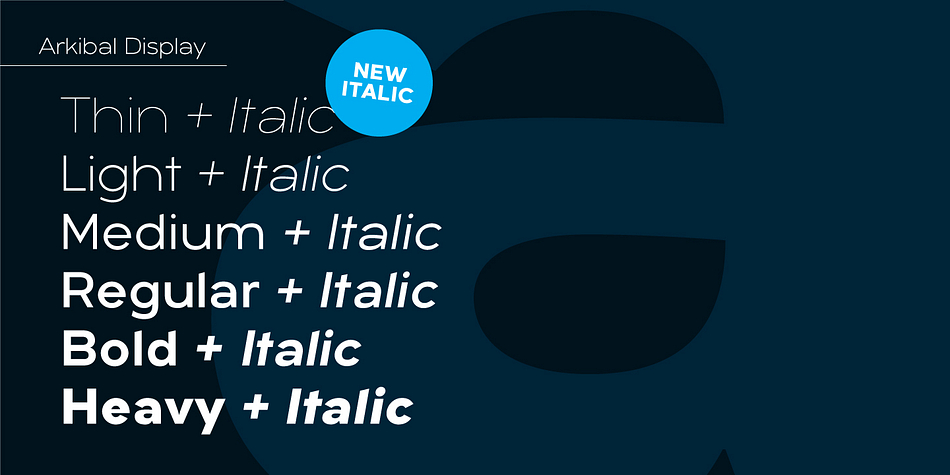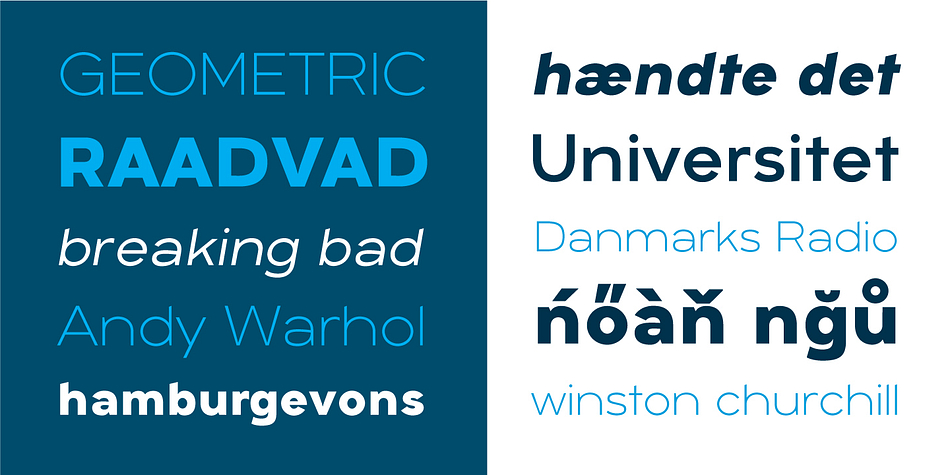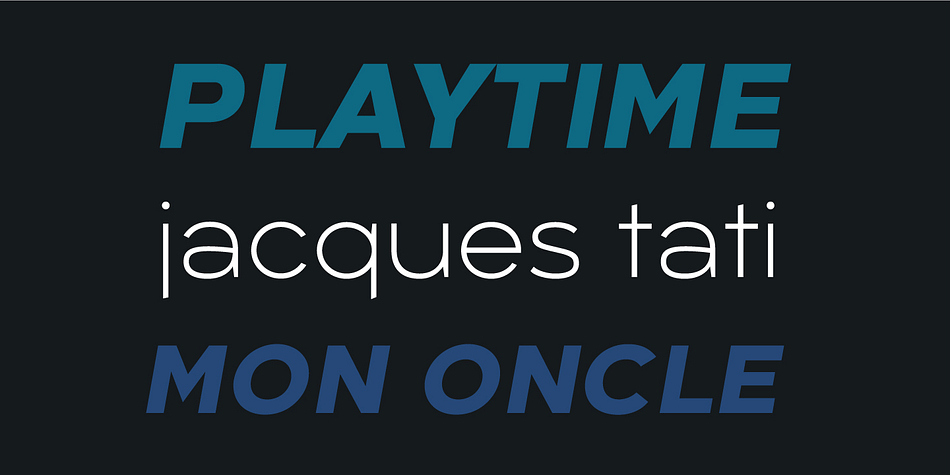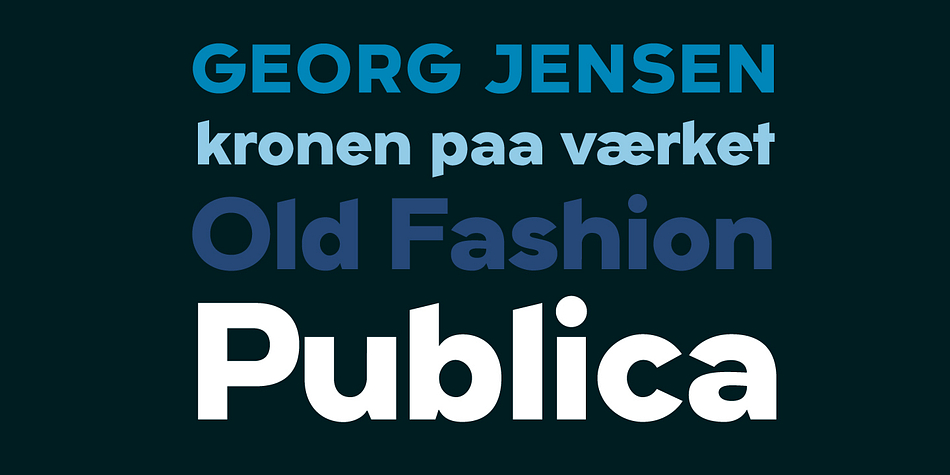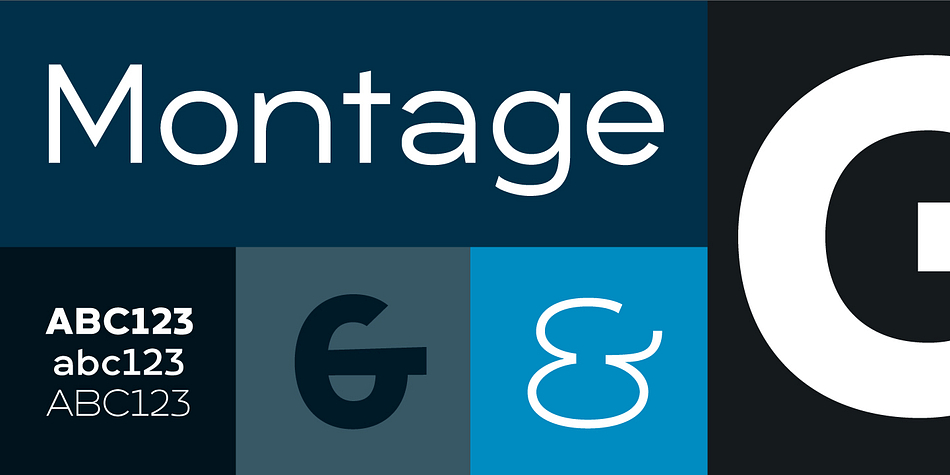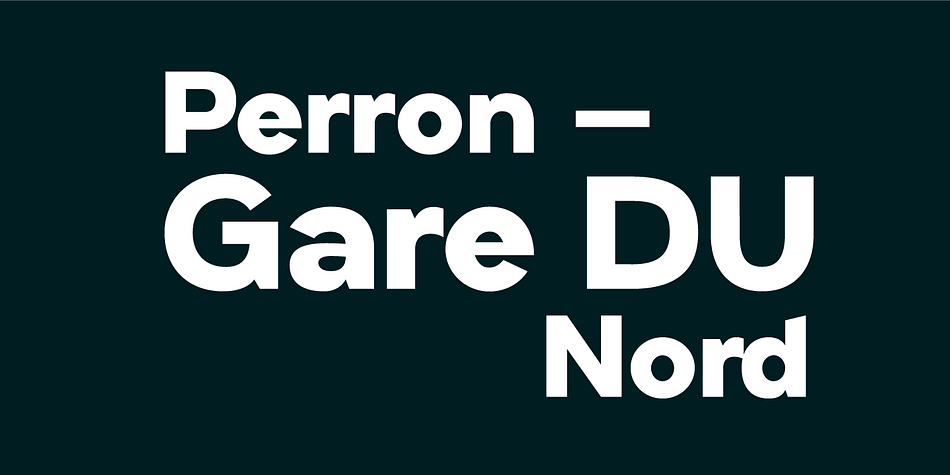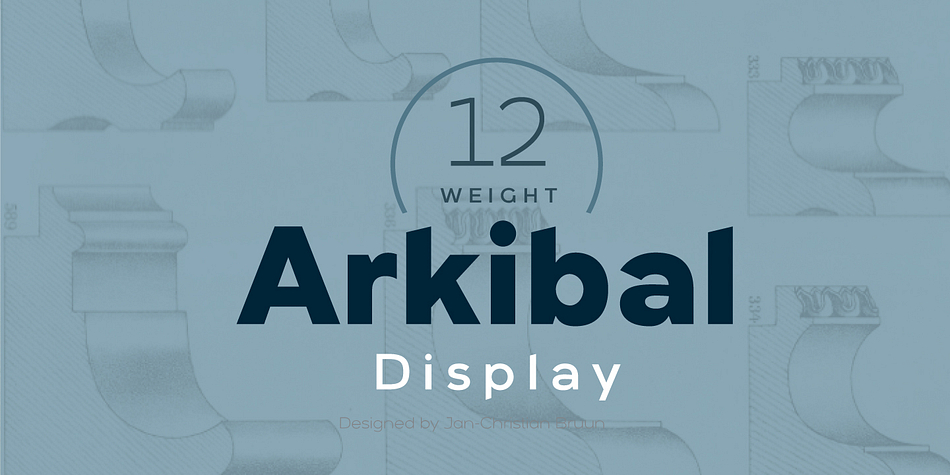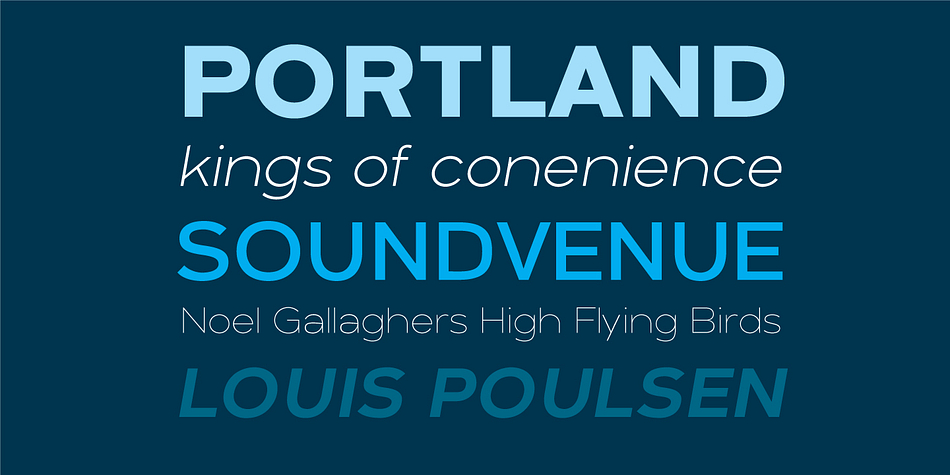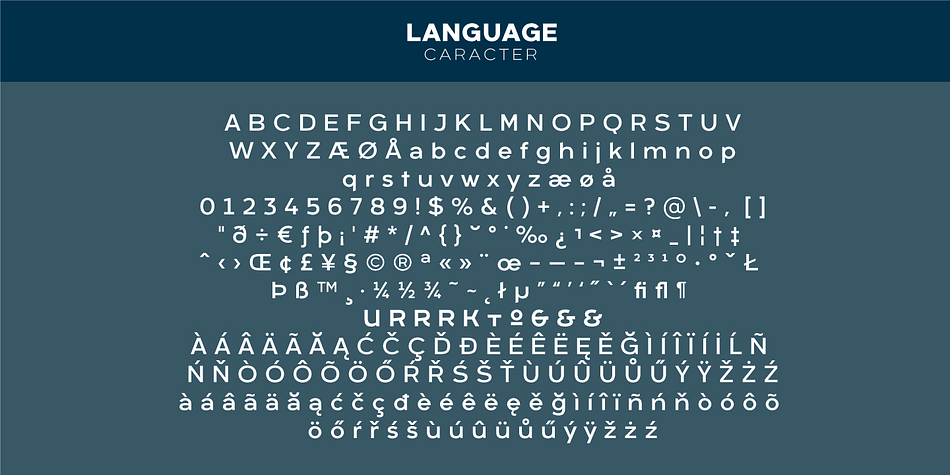
Designed by Jan-Christian Bruun, Arkibal Display is a sans serif font family. This typeface has twelve styles and was published by JC Design Studio.
Arkibal Display
Display version is a little different from Sans family, where “a” is the center of the whole font. And letters “l, b, d, p, q, and t” is the moved slight angle. The idea was to make two versions with a different selection of letters. It provides good dynamics and structure of display version.
The inspiration comes from some old documents and store signs from my great-grandfather’s old gold list factory from 1838. He delivered hits for many artists of that time, and various museums in Copenhagen. Uppercase ‘G’ was the first letter of the starting point. G stands for in Danish ‘Guldramme’, which means ‘Goldframe’. Arkibal is coming from an almost old danish tradional name “Arkibald”, only without “d”.